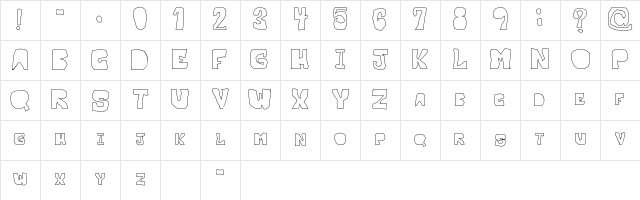
OPN Malatashito Naked Regular Free Font
OPN Malatashito Naked Regular
Design Context for OPN Malatashito Naked
OPN Malatashito Naked is a composed and adaptable typeface that performs quietly and consistently across a wide range of design contexts.